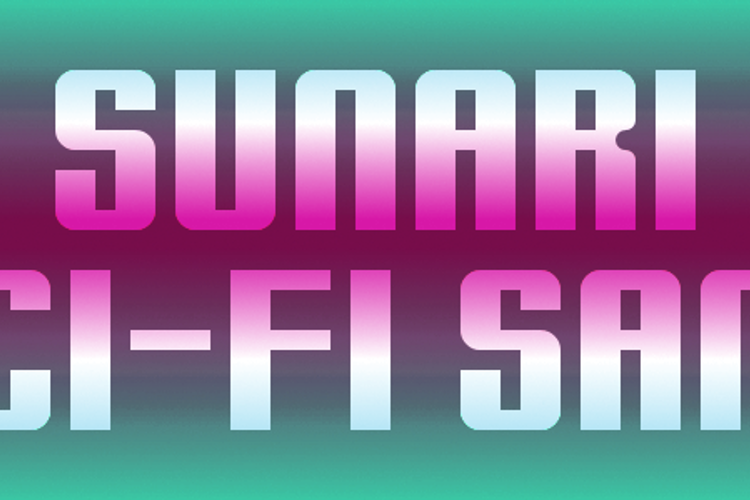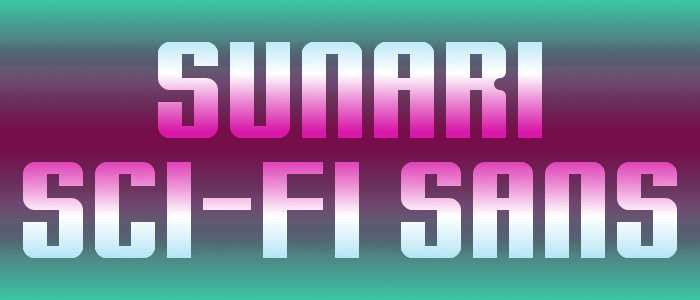
Sunari Font
About Sunari Font
An asymmetrical boldtype I designed for a certain Role-Playing Game's rulebooks. This supports Danish, Dutch, English, Finnish, French, German, Hungarian, Icelandic, Italian, Norwegian, Portuguese, Spanish, and Swedish.